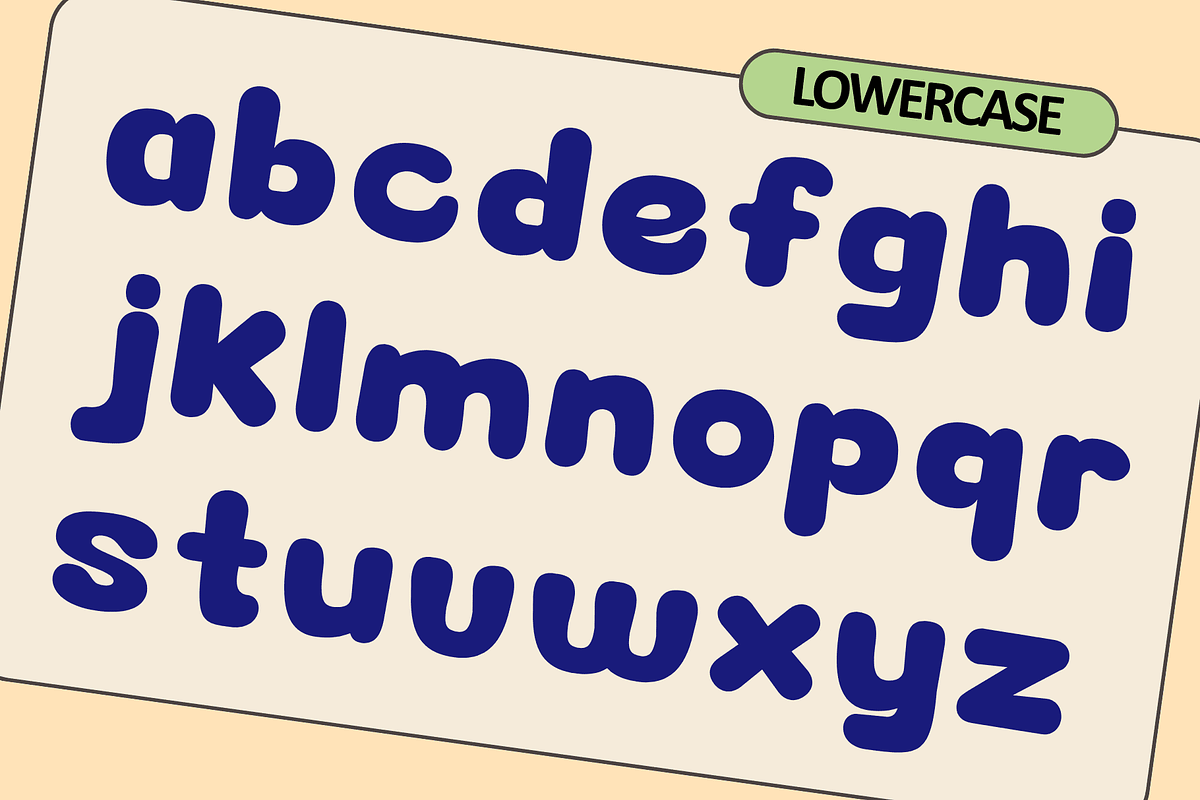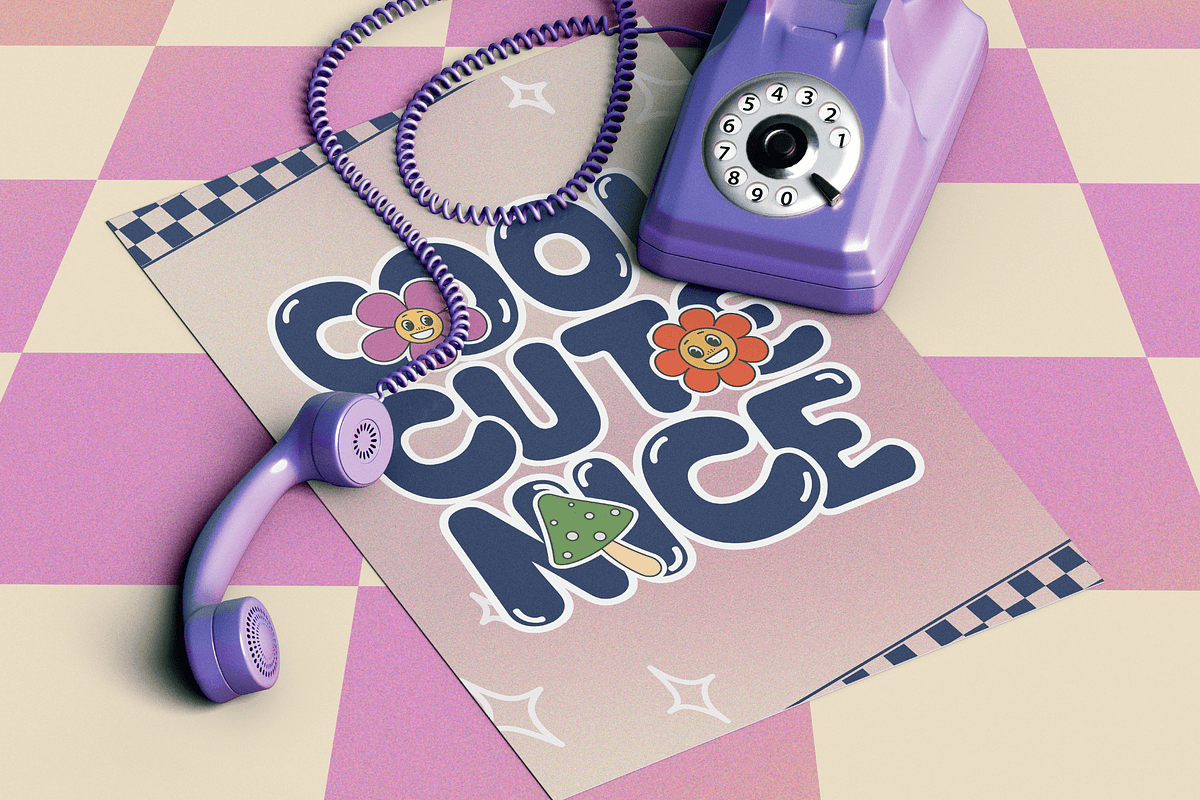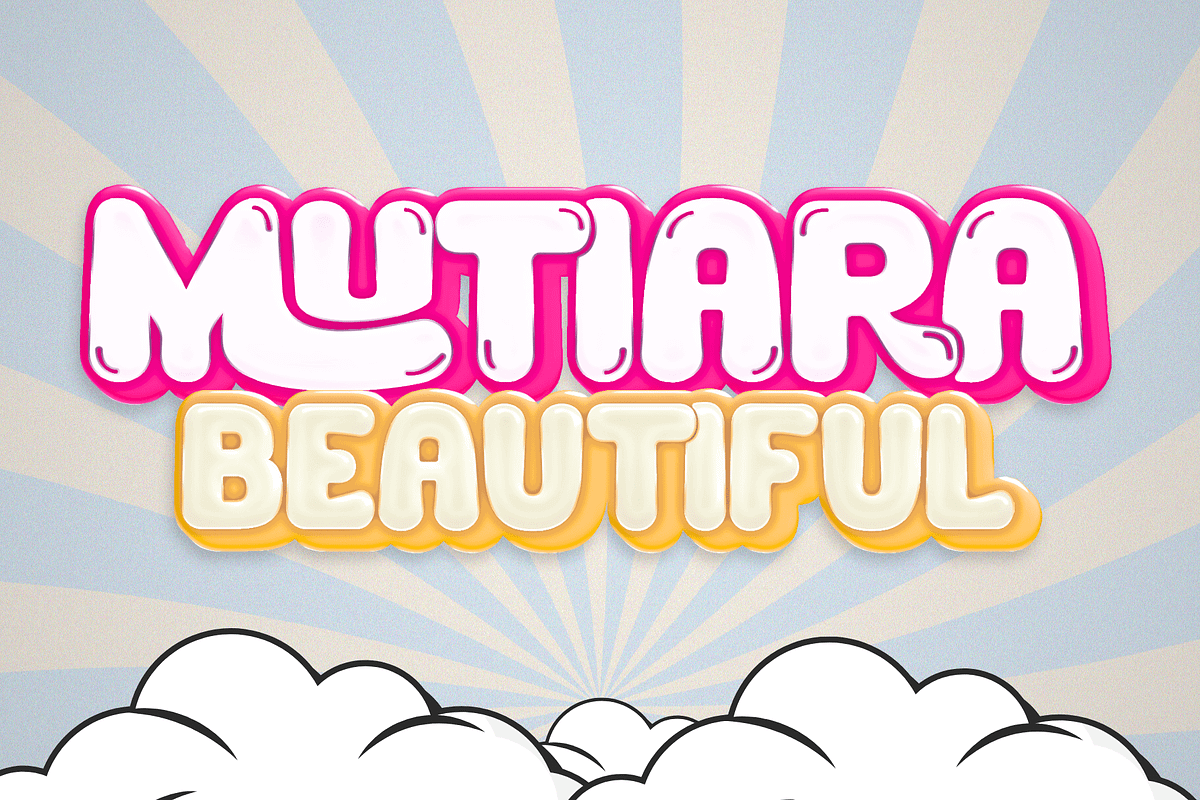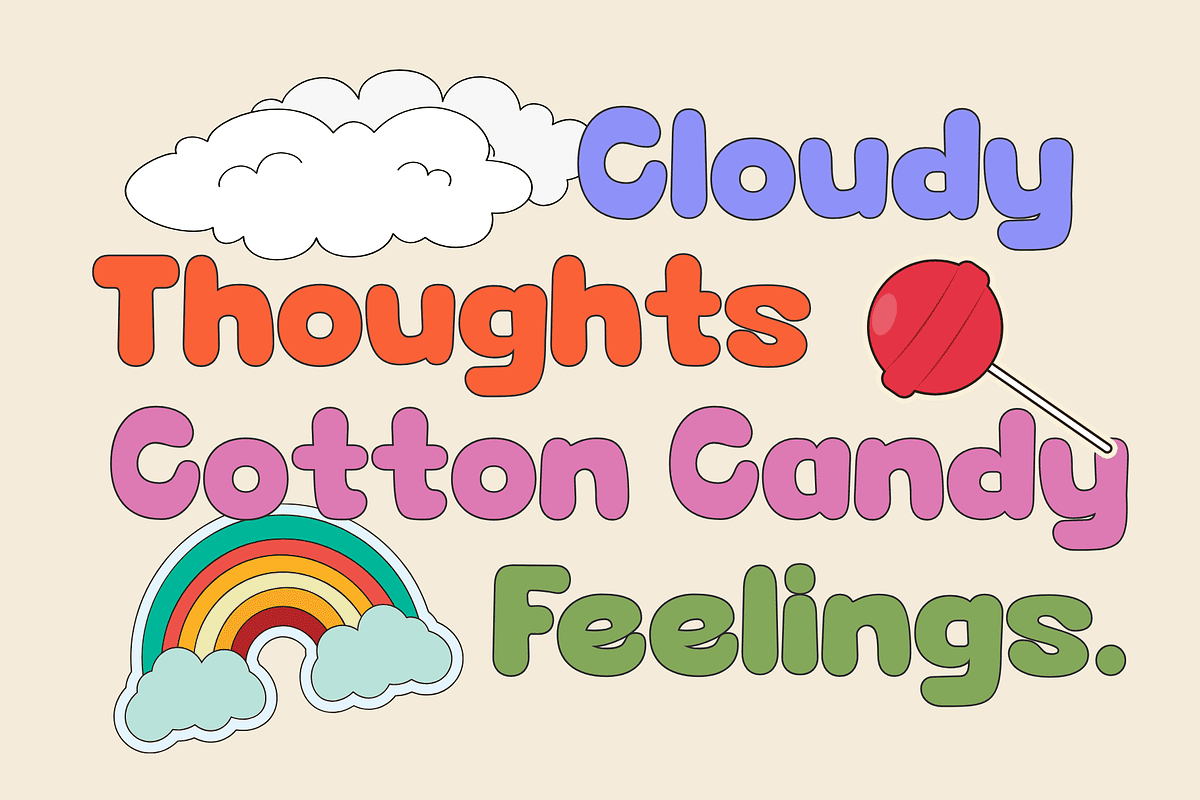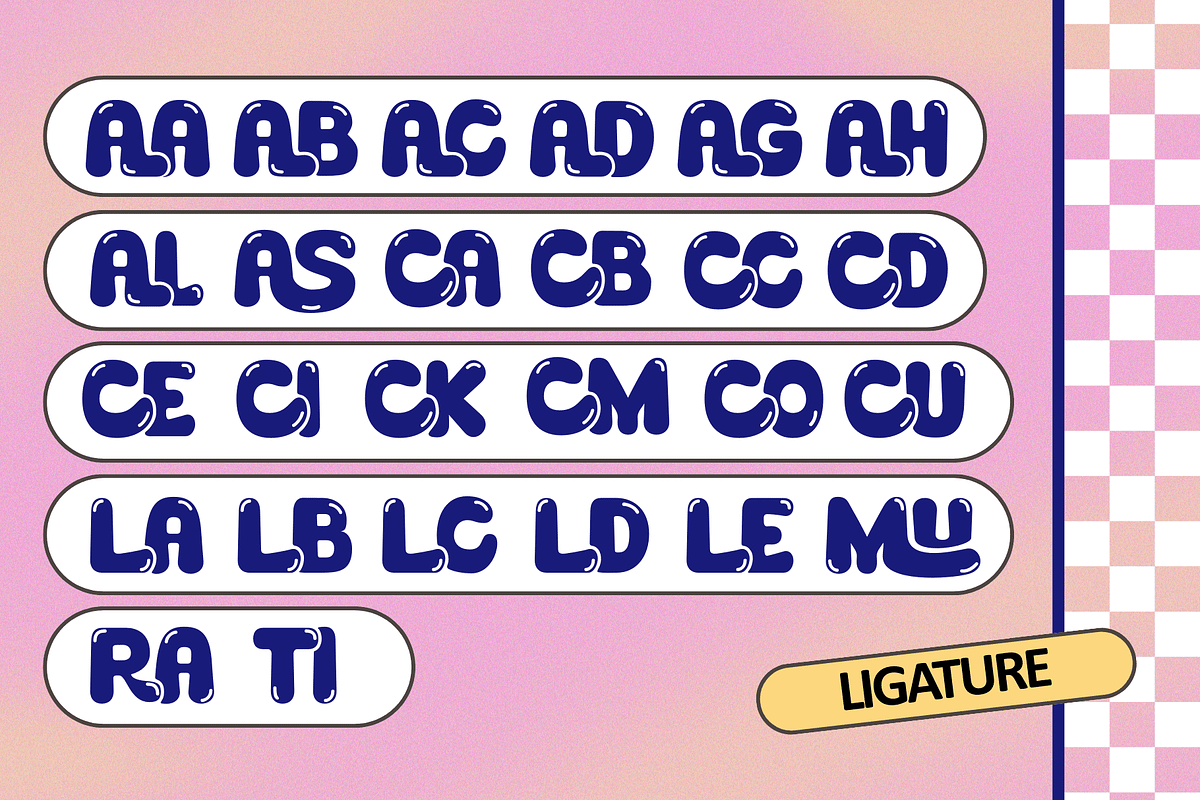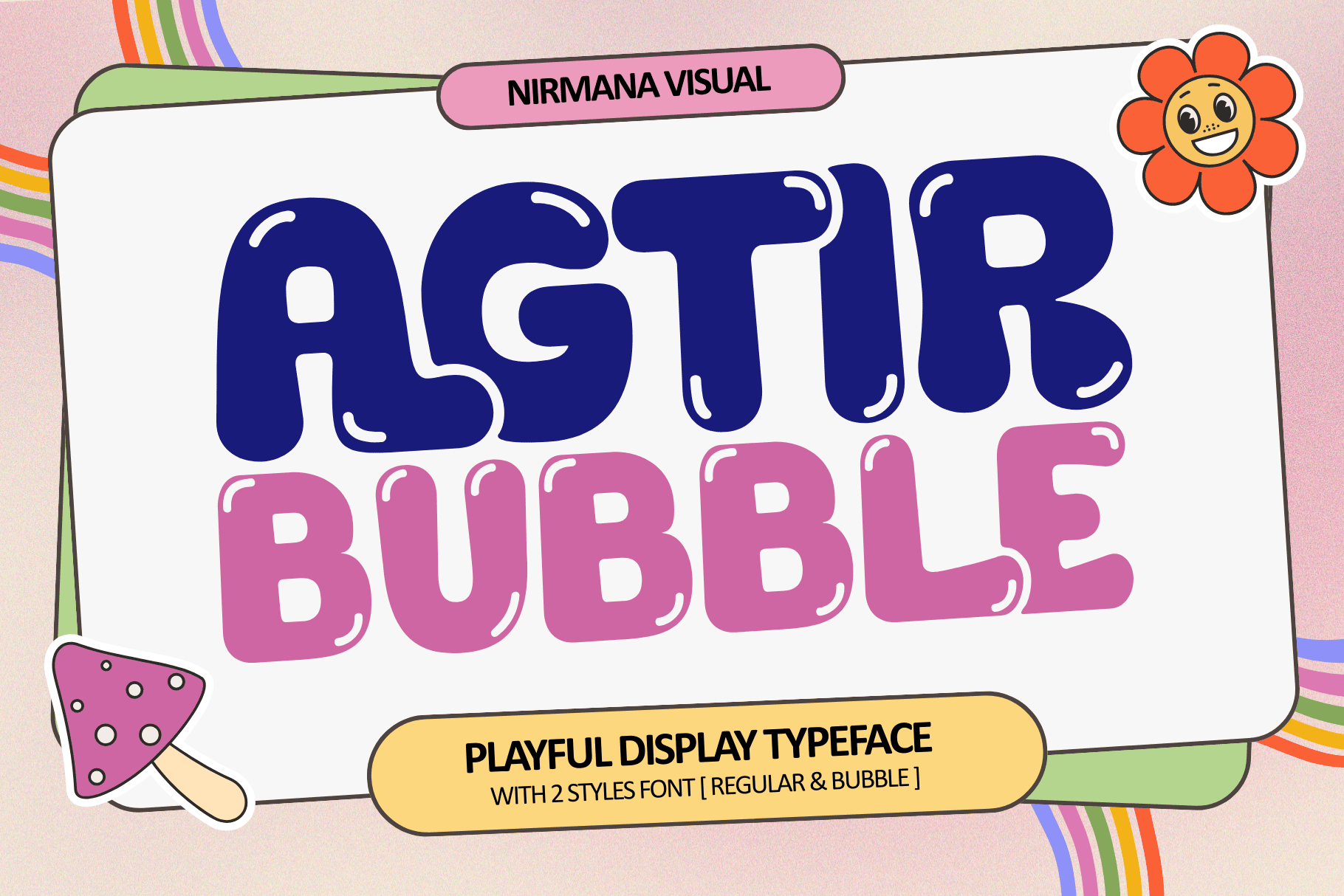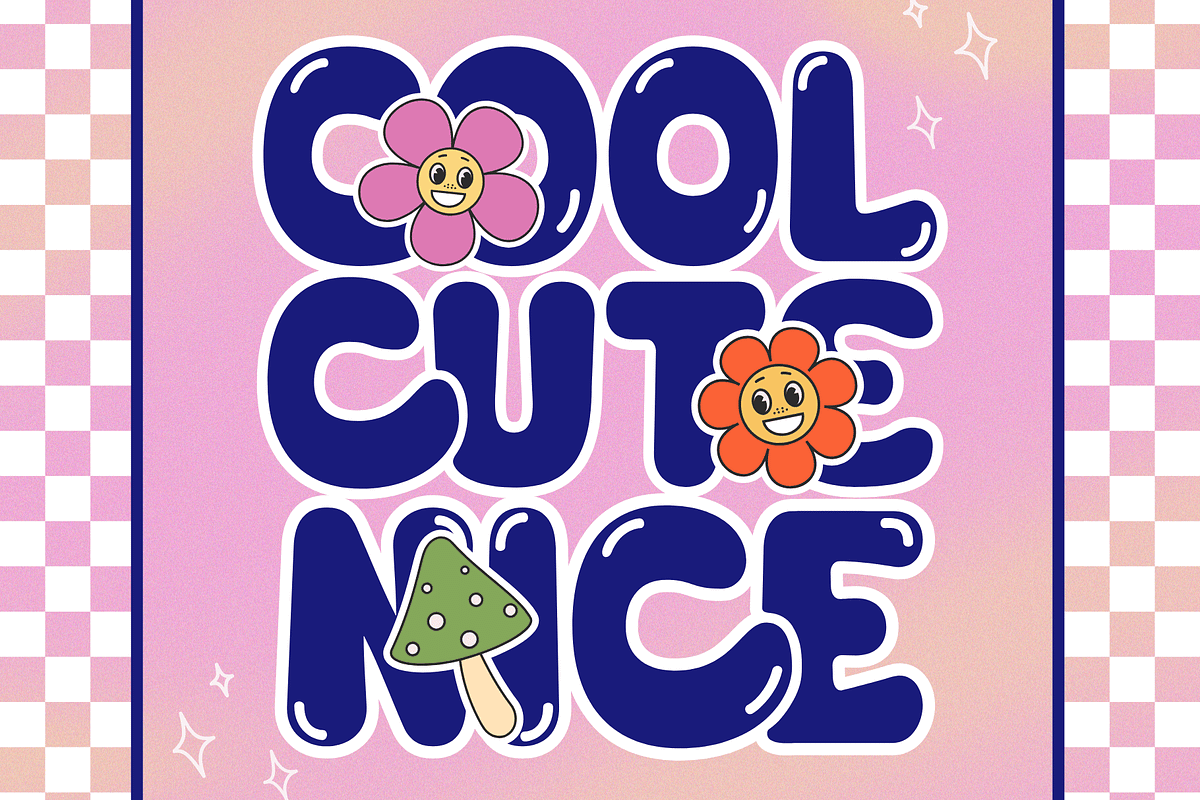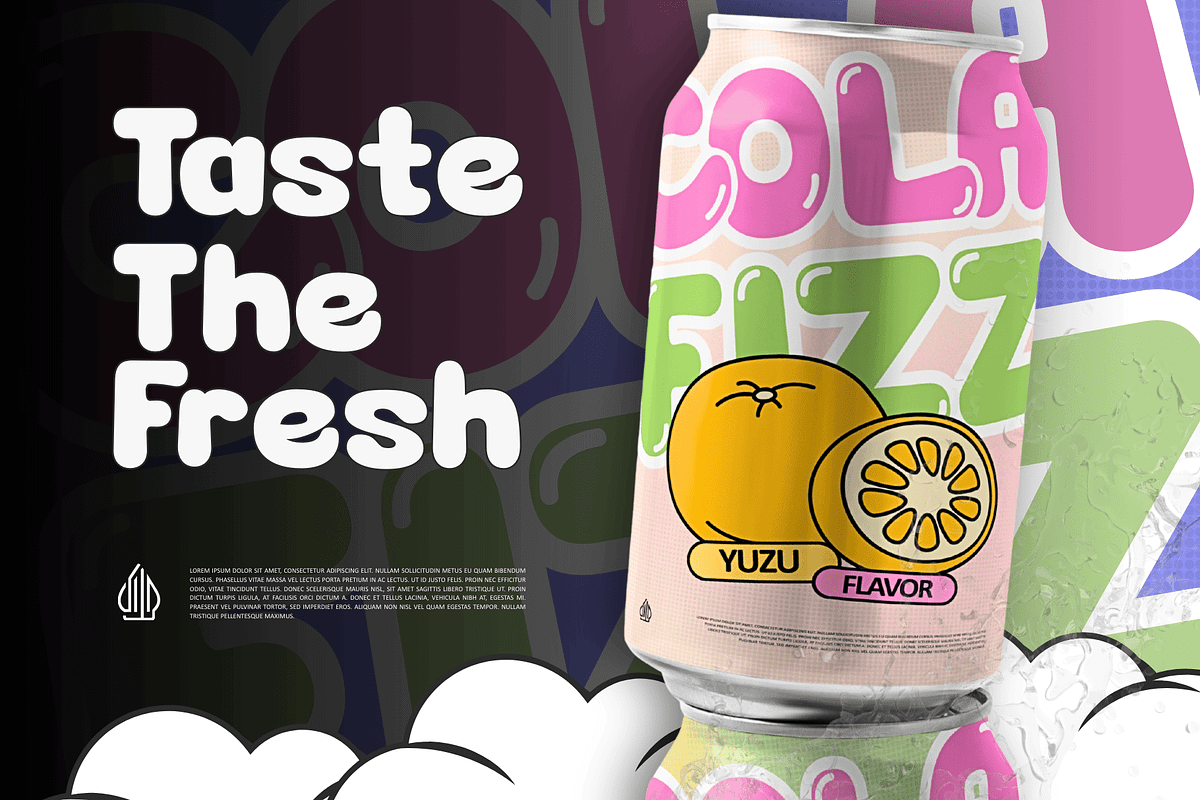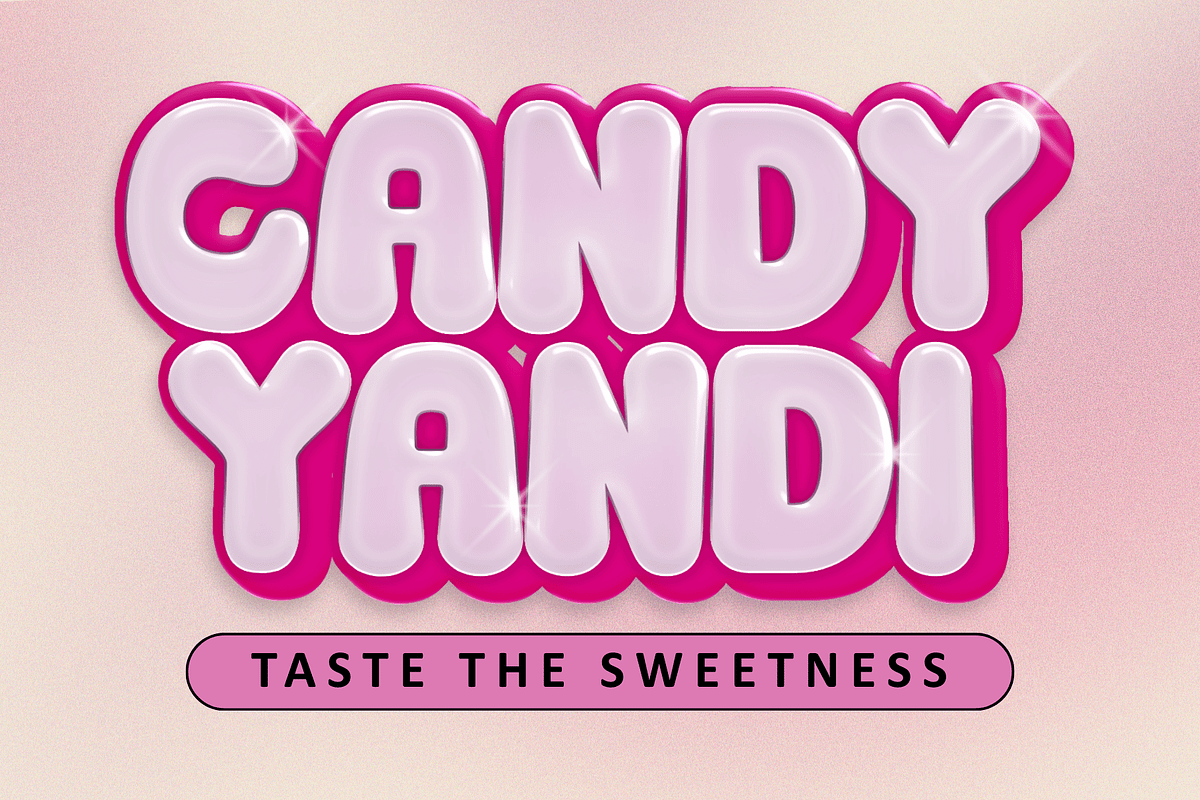
Agtir Bubble - Playful Logo Font
Agtir Bubble is a playful bubble-style font designed to bring joy and personality to your designs. With its rounded, soft shapes and cheerful look, it’s perfect for logo branding, product packaging, labels, kids-themed projects, social media graphics, and more. Agtir Bubble adds a fun, friendly vibe that helps brands stand out while keeping designs light, bold, and memorable. Perfect for creative projects that need a touch of happiness and charm.